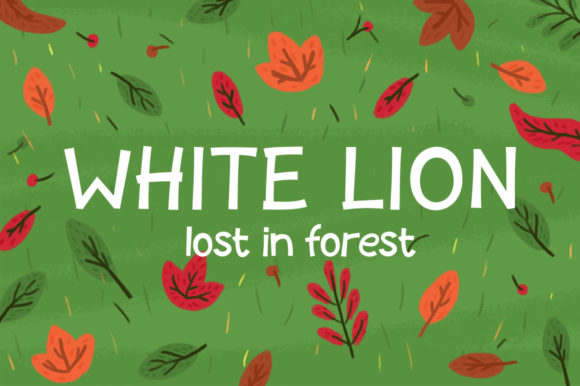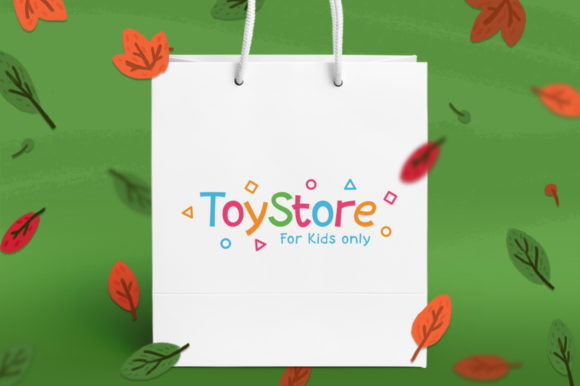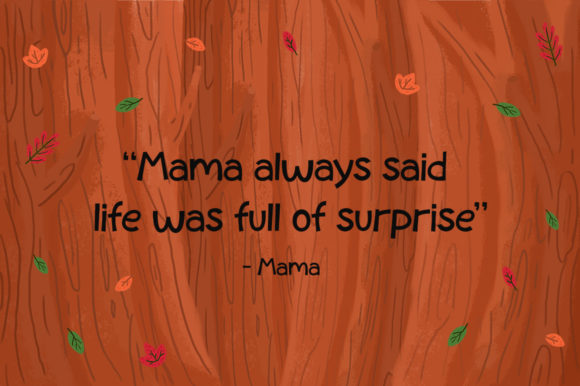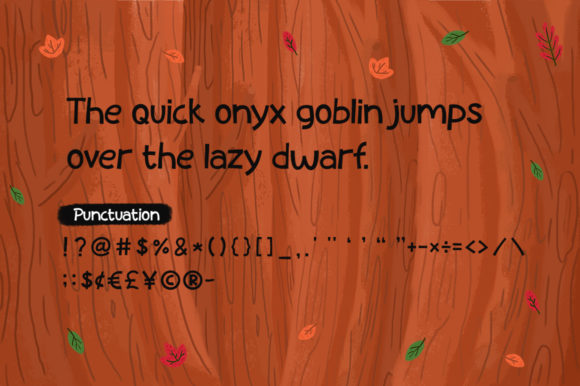
Forest Run Font
About Forest Run Font
Forest Run is a delightful and whimsical handwritten font that adds a playful touch to your designs. With its unique and slightly quirky style, this font brings a sense of joy and creativity to any project. Whether you’re designing greeting cards, children’s books, logos, or any other creative work, Forest Run is sure to capture attention and evoke a sense of lightheartedness.
The versatility of Forest Run lies in its ability to adapt to various contexts. Its charming and slightly irregular letterforms make it suitable for a wide range of designs, from fun and vibrant to cute and whimsical. The font’s playful nature adds a touch of personality and character to your creations, making them stand out and leave a lasting impression.
Whether you’re using Forest Run for digital or print designs, its lively and expressive strokes bring your text to life. It is perfect for adding a touch of whimsy to invitations, posters, packaging, social media graphics, and more. The font’s versatility ensures that it can be seamlessly integrated into different design styles and themes.
With Forest Run, you can infuse your designs with a sense of fun and playfulness. Its unique style and adaptability make it a go-to choice for a wide range of creative projects. Let Forest Run add a touch of quirkiness and charm to your designs, making them memorable and enjoyable for viewers.